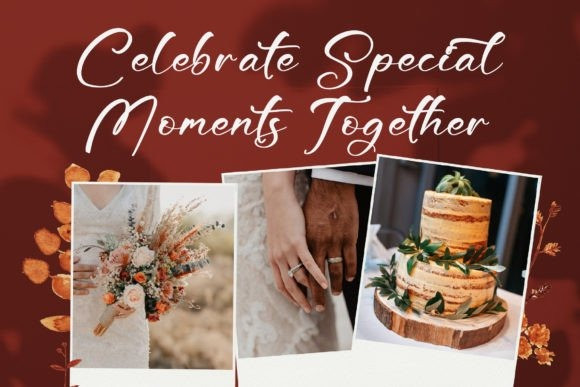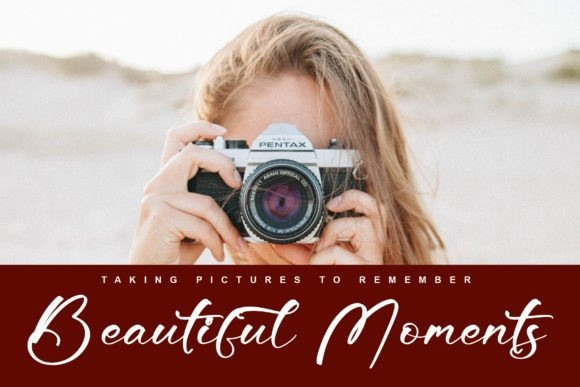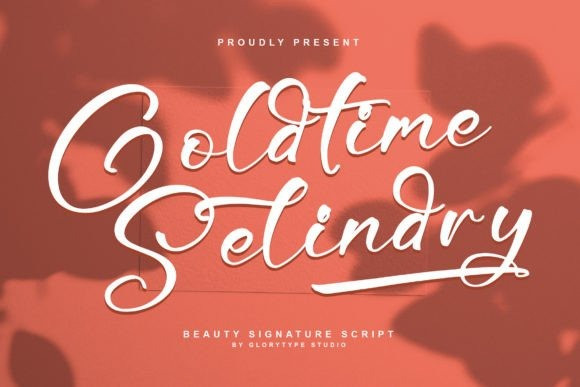
Goldtime Selindry Font
Goldtime Selindry – Beauty Signature Script , from Glorytype Studio, suitable for any projects such as: logos, branding projects, homeware designs, product packaging, mugs, quotes, posters, shopping bags, t-shirts, book covers, name card, invitation cards, greeting cards, label, photography, watermark, special events, and all your other lovely projects that need a beautiful script taste.